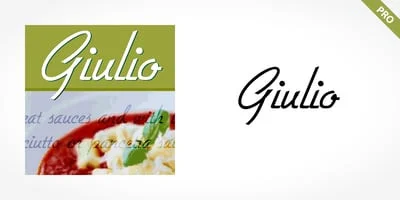
Giulio Pro Font
Giulio Pro Font is perfect for luxury branding, fashion magazines, high-end packaging, corporate identity, professional presentations, elegant websites, premium product catalogs, sophisticated marketing materials, and any project requiring refined typography with contemporary Italian elegance.
What makes Giulio Pro Font exciting is its sophisticated blend of classical Italian typography with modern professional aesthetics. This exceptional typeface captures the essence of Renaissance craftsmanship while delivering contemporary functionality and versatility. The font's refined letterforms and balanced proportions create an immediate impression of quality and sophistication, making it ideal for brands that demand excellence and timeless appeal in their visual communication.
The Giulio Pro Font family includes multiple weights from light to black, featuring complete uppercase and lowercase alphabets, extensive punctuation, advanced OpenType features, multilingual support, and professional typographic elements including ligatures and alternate characters. Each weight maintains the font's signature elegance while offering comprehensive design flexibility.
Whether you're developing luxury brand identities, creating professional corporate materials, or designing sophisticated editorial layouts, Giulio Pro Font delivers unparalleled refinement and versatility. This distinguished typeface transforms ordinary text into premium visual experiences that communicate professionalism and Italian design excellence. The font's comprehensive character set and advanced features make it perfect for complex multilingual projects and high-end applications. Download this remarkable font today and elevate your designs with authentic Italian sophistication and professional typography standards.